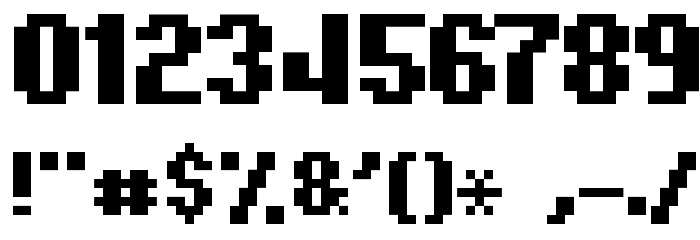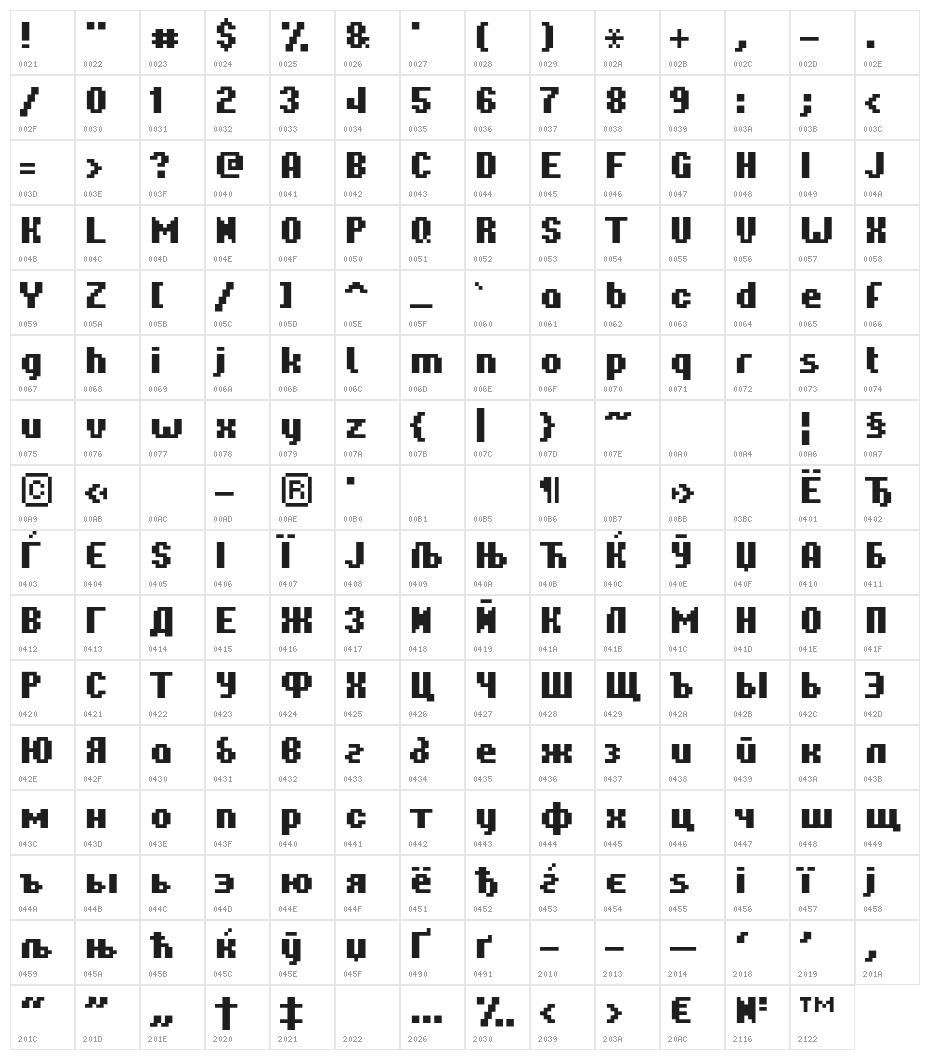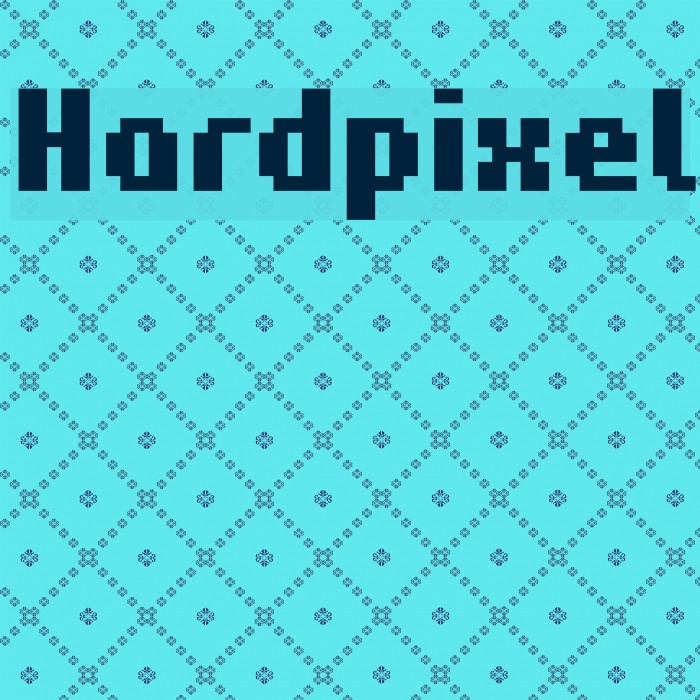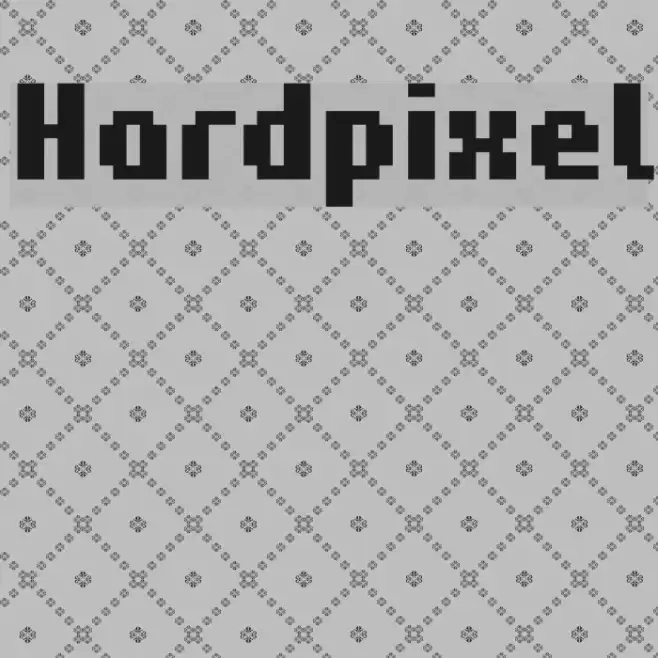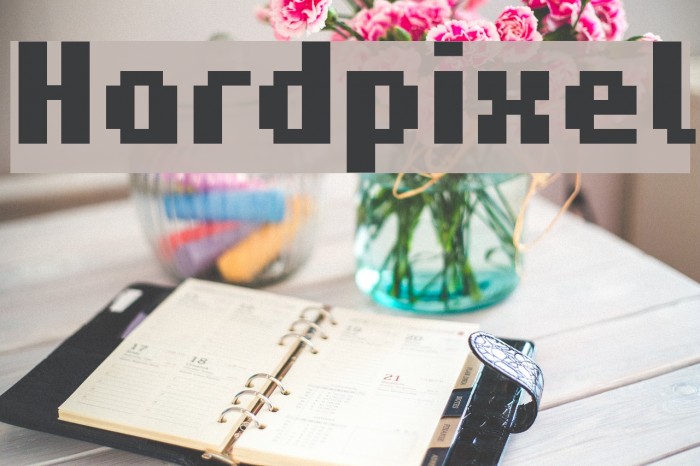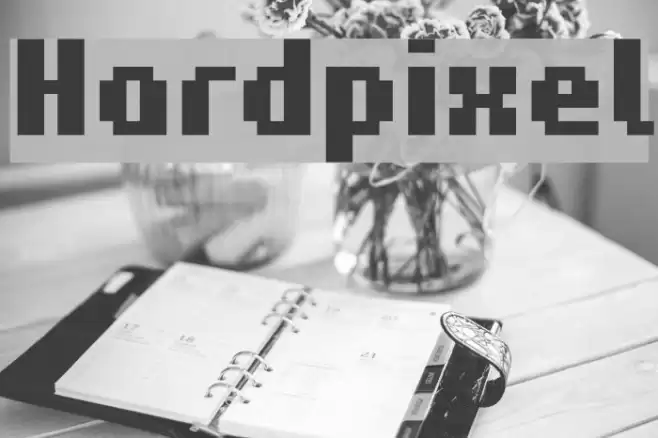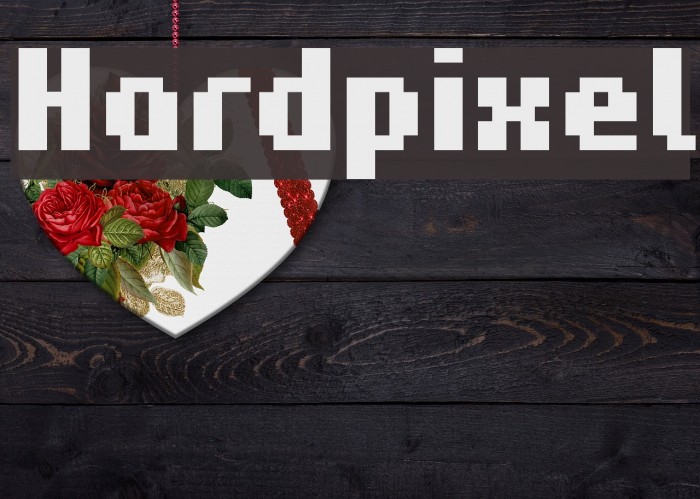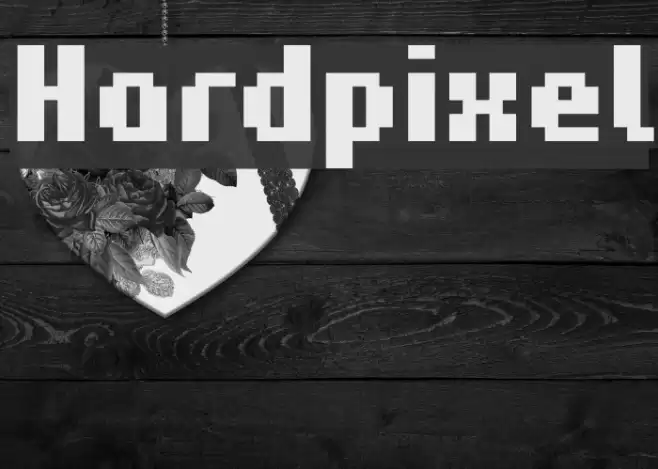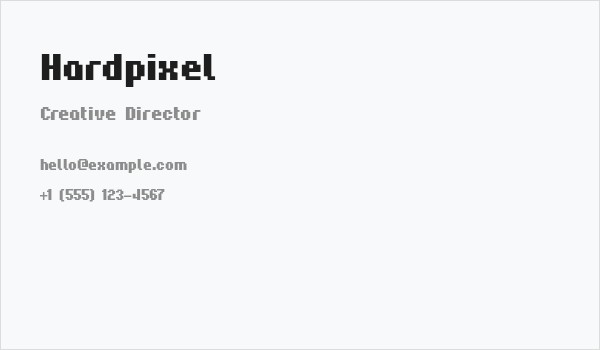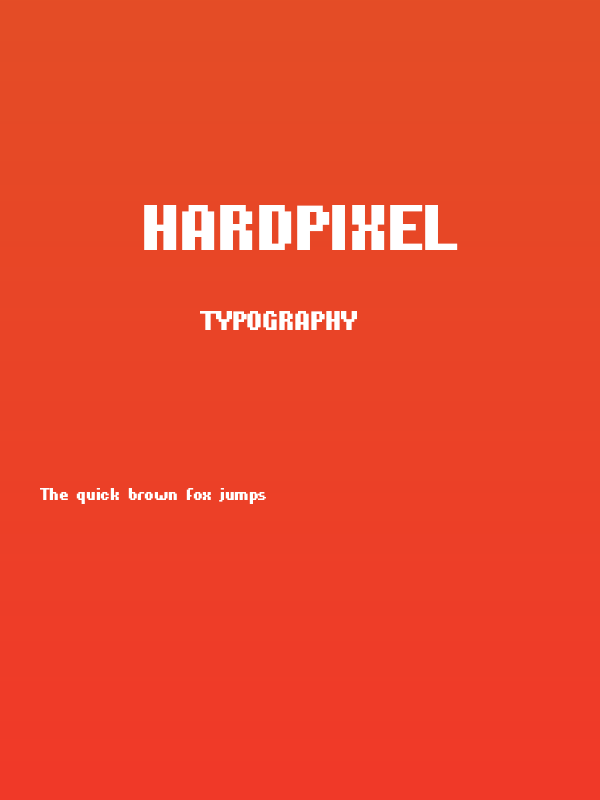
Hardpixel Font
Hardpixel Description
This font features a bold, pixelated design reminiscent of early digital and arcade aesthetics. Each character is constructed with a blocky, grid-like structure, giving it a distinctly retro and digital feel. The uppercase and lowercase letters maintain a consistent height, contributing to its uniform appearance. Numbers and special characters follow the same pixelated style, ensuring a cohesive look across all glyphs. The font's simplicity and geometric form make it highly legible, even at smaller sizes, while its boldness ensures it stands out in any design.
| Overall Style | Retro |
| Proposed Projects | Ideal for video game designs, retro-themed posters, digital art projects, and any creative work that seeks to evoke nostalgia for early computer graphics. |